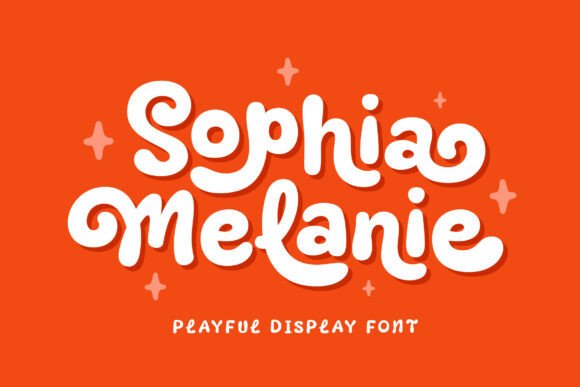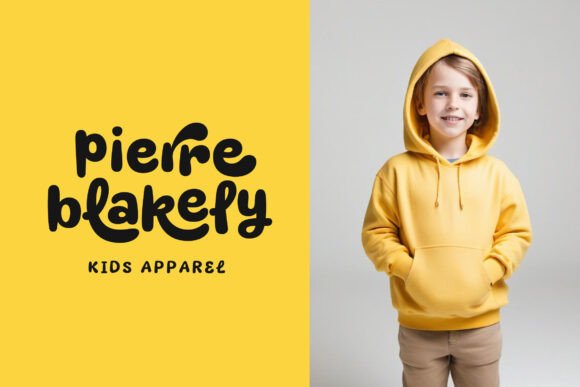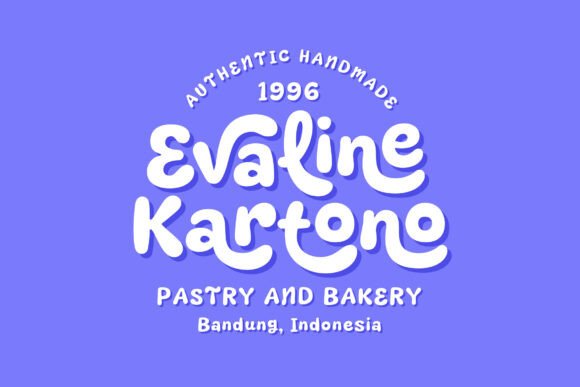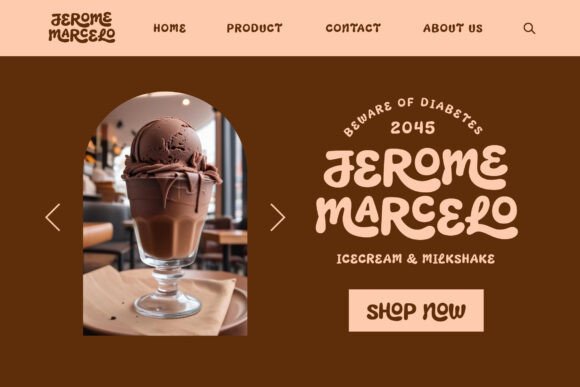
Sophia Melanie Font: A Cute Display Font for Playful Logo Design
About the Sophia Melanie Font
Step up your design game with Sophia Melanie Font, a font that exudes confidence and style. Introducing our newest font called Sophia Melanie. Adorable, cute, playful font that adds a sprinkle of joy to every design! Perfect for branding, social media, invitations, or anything that needs a dash of fun. Whether you’re crafting sweet quotes, eye-catching logos, or playful packaging, this font is your go-to for instant charm.
Sophia Melanie Font Usage Examples
Sophia Melanie Font Example